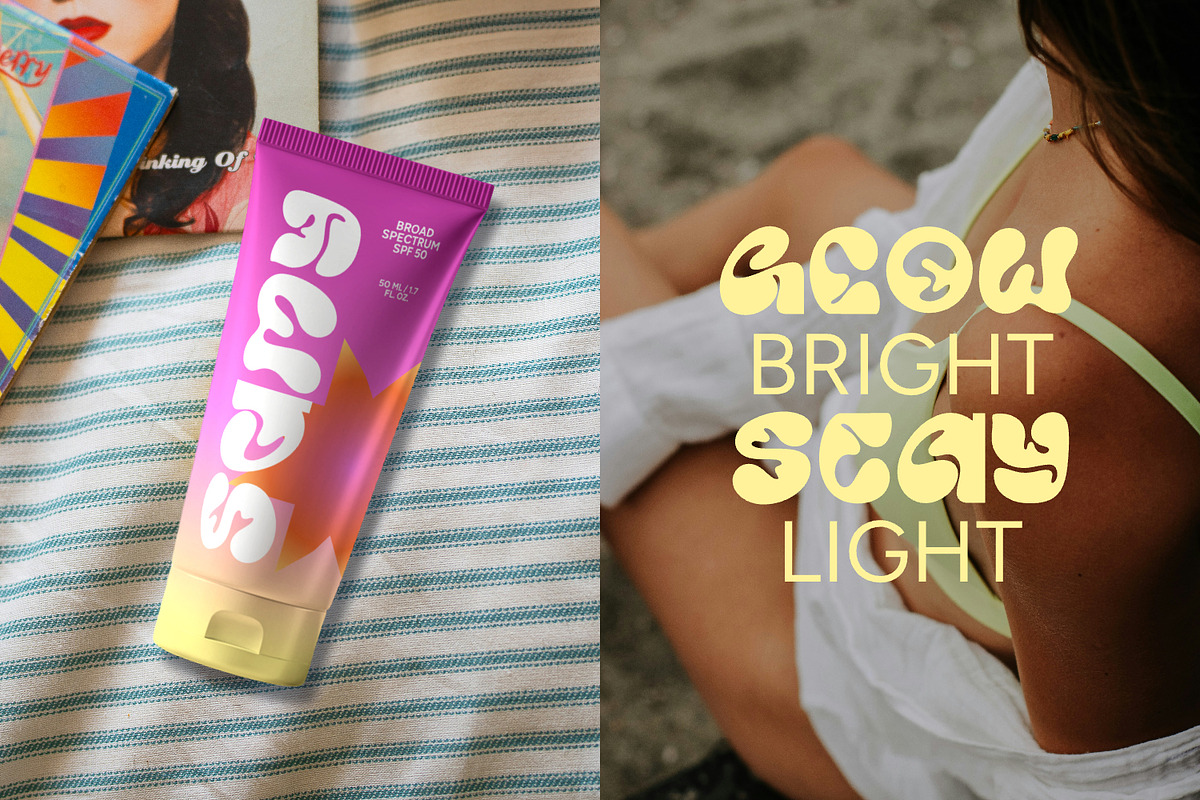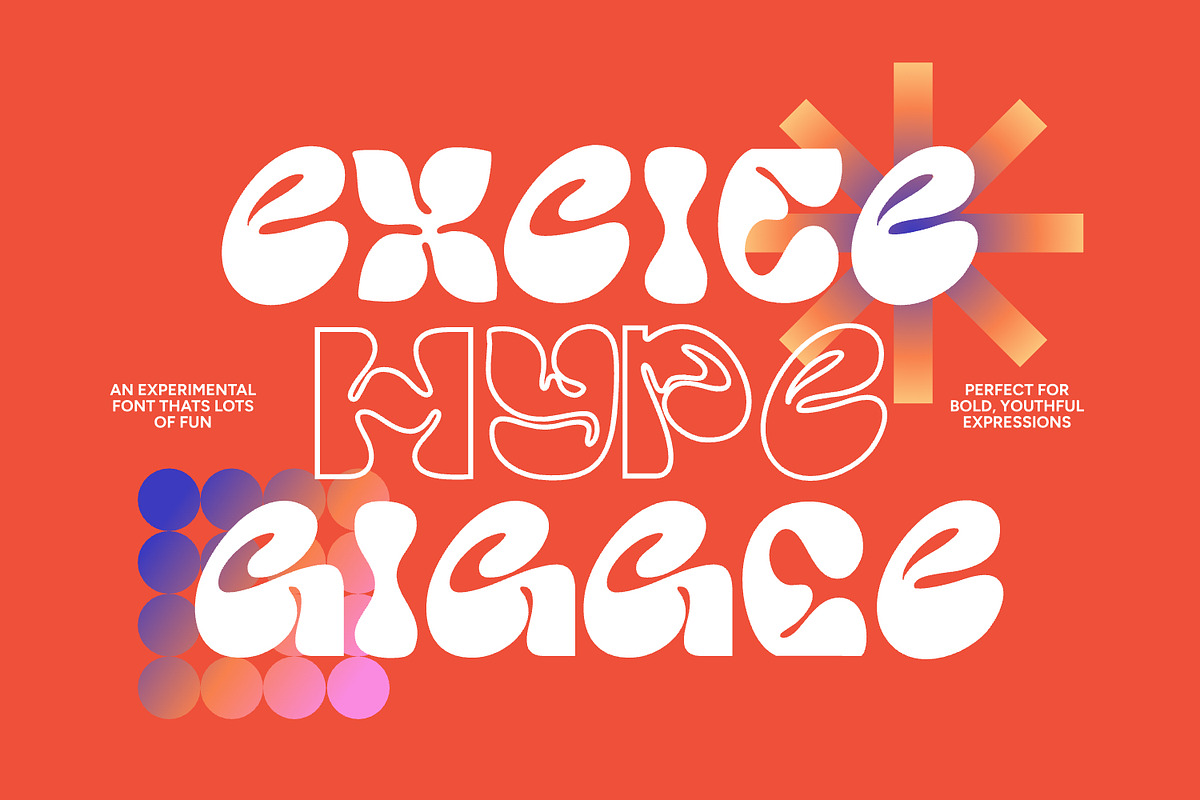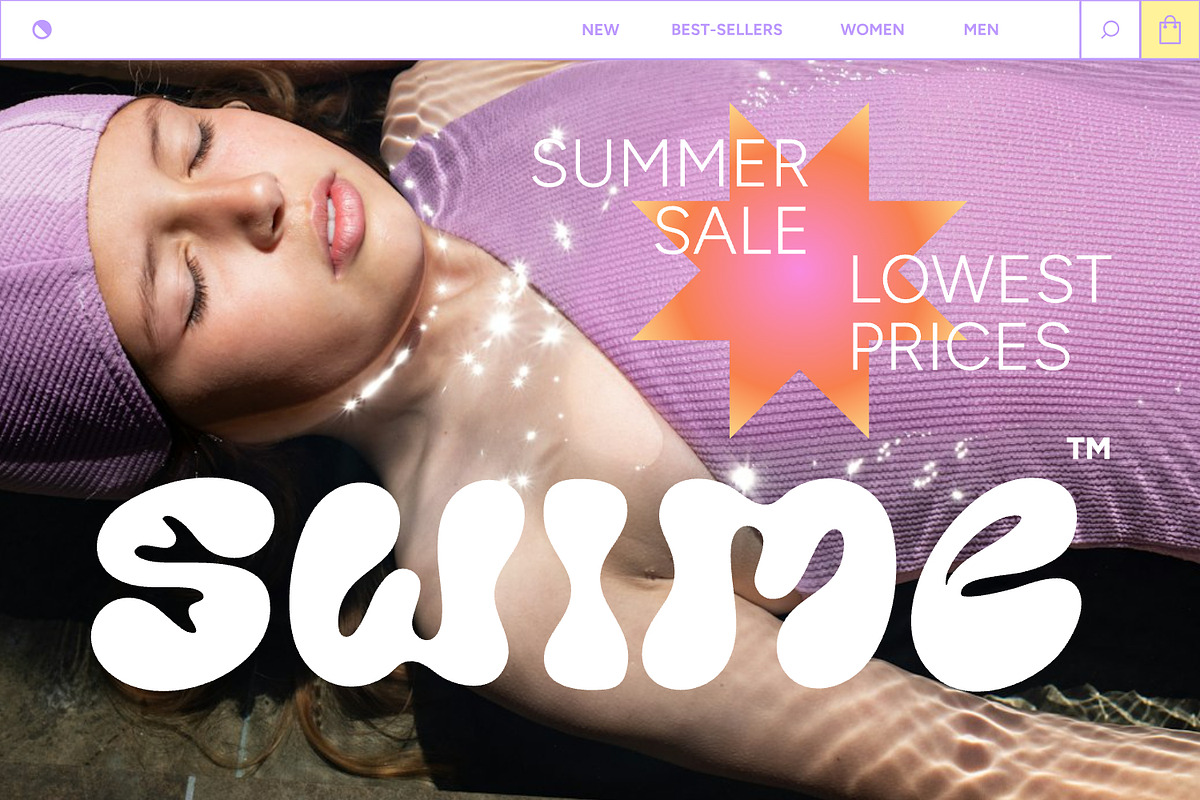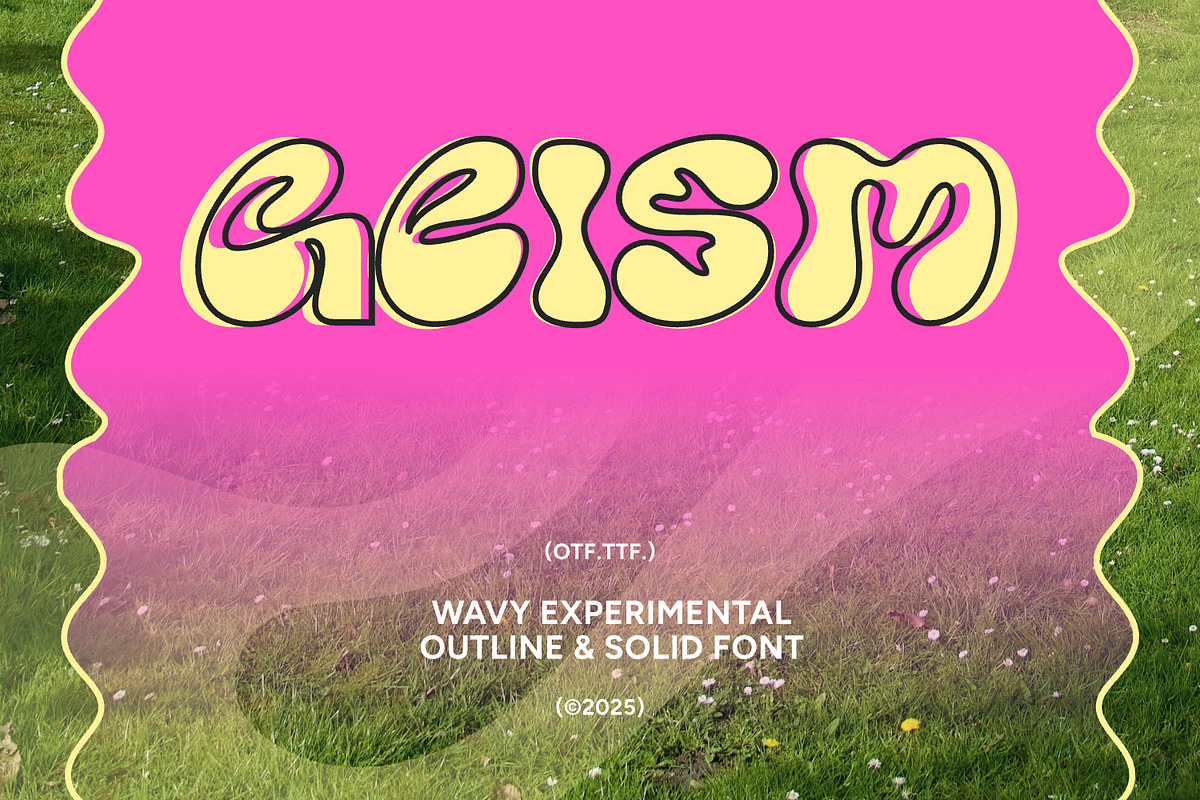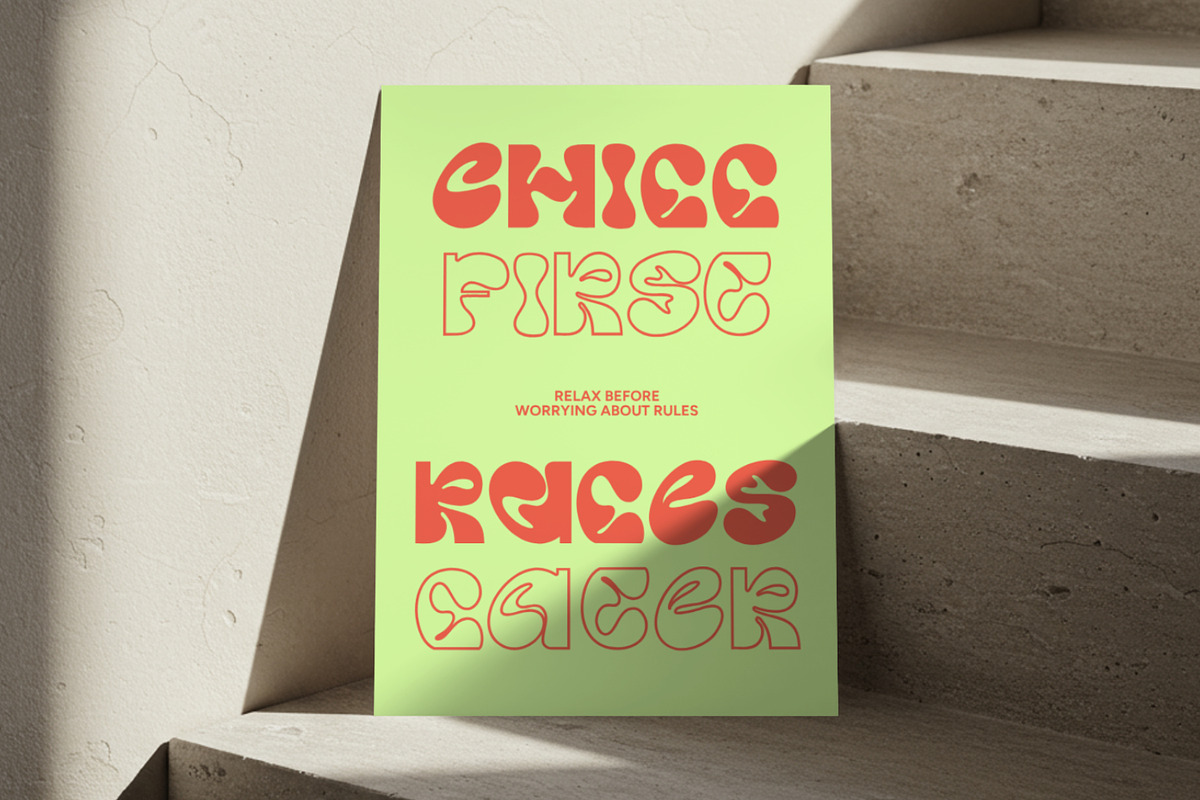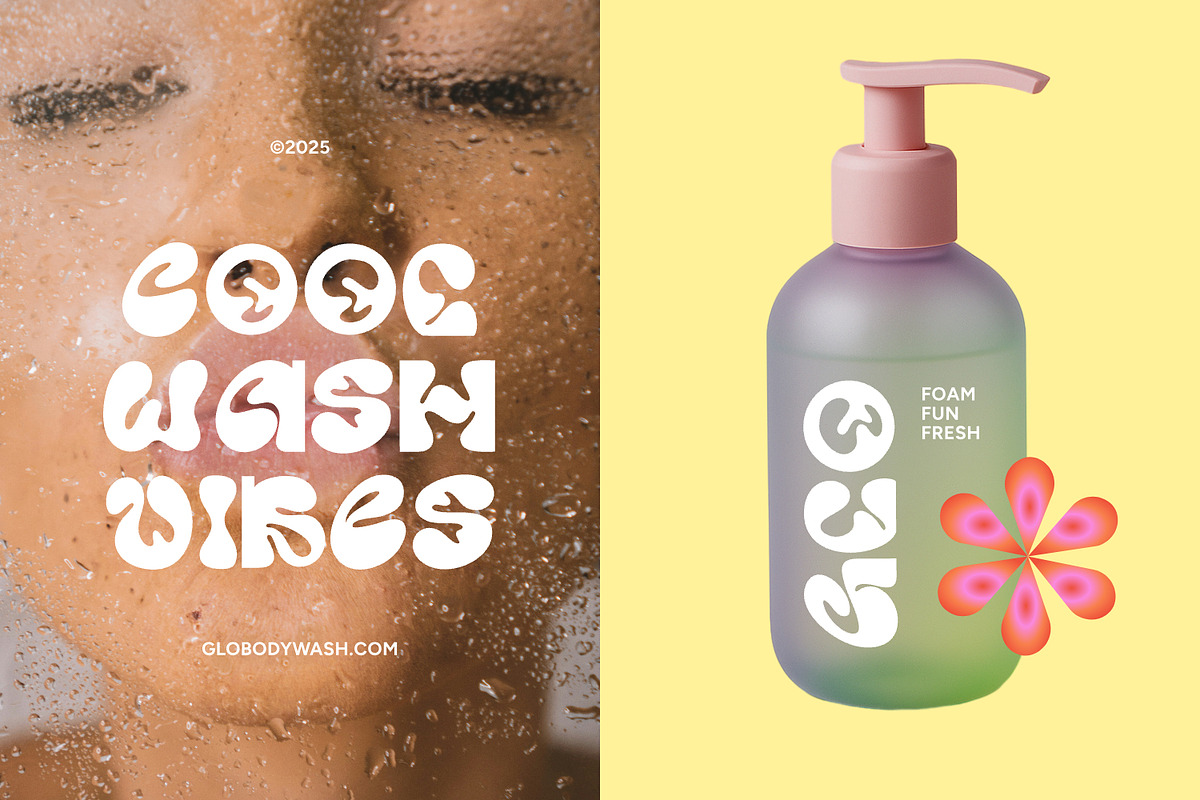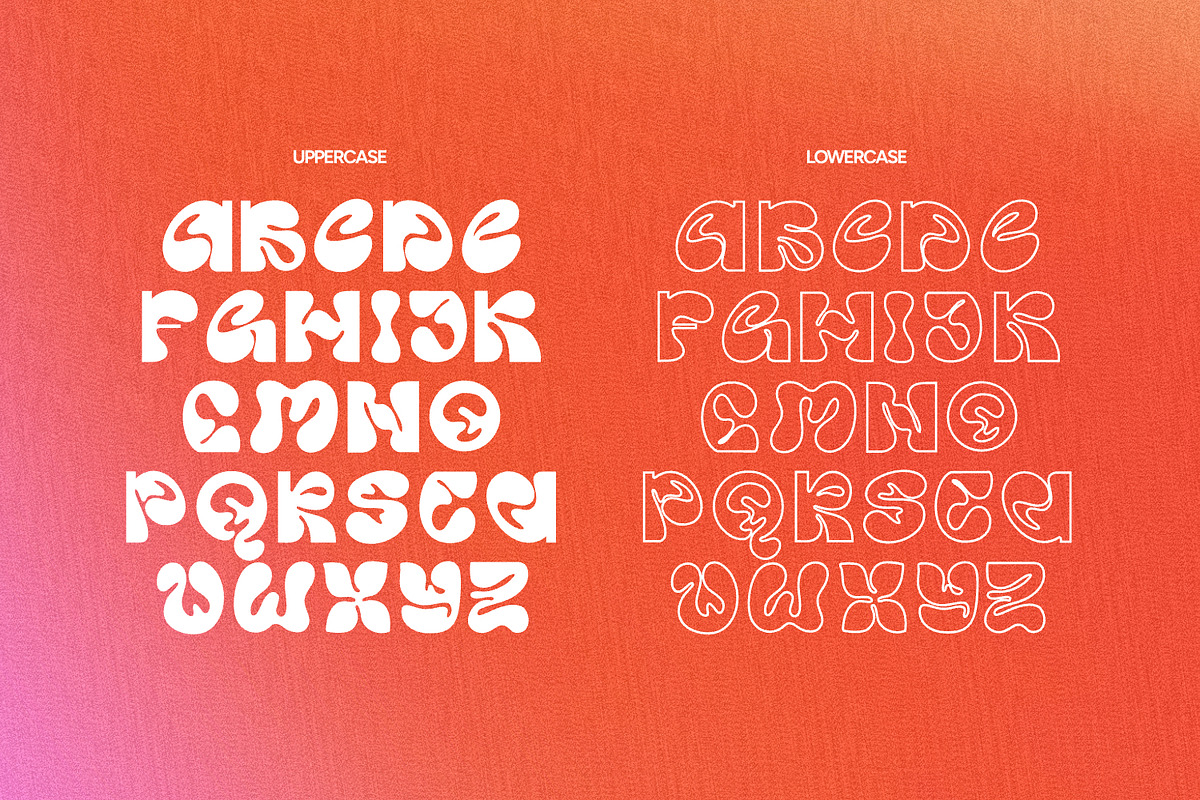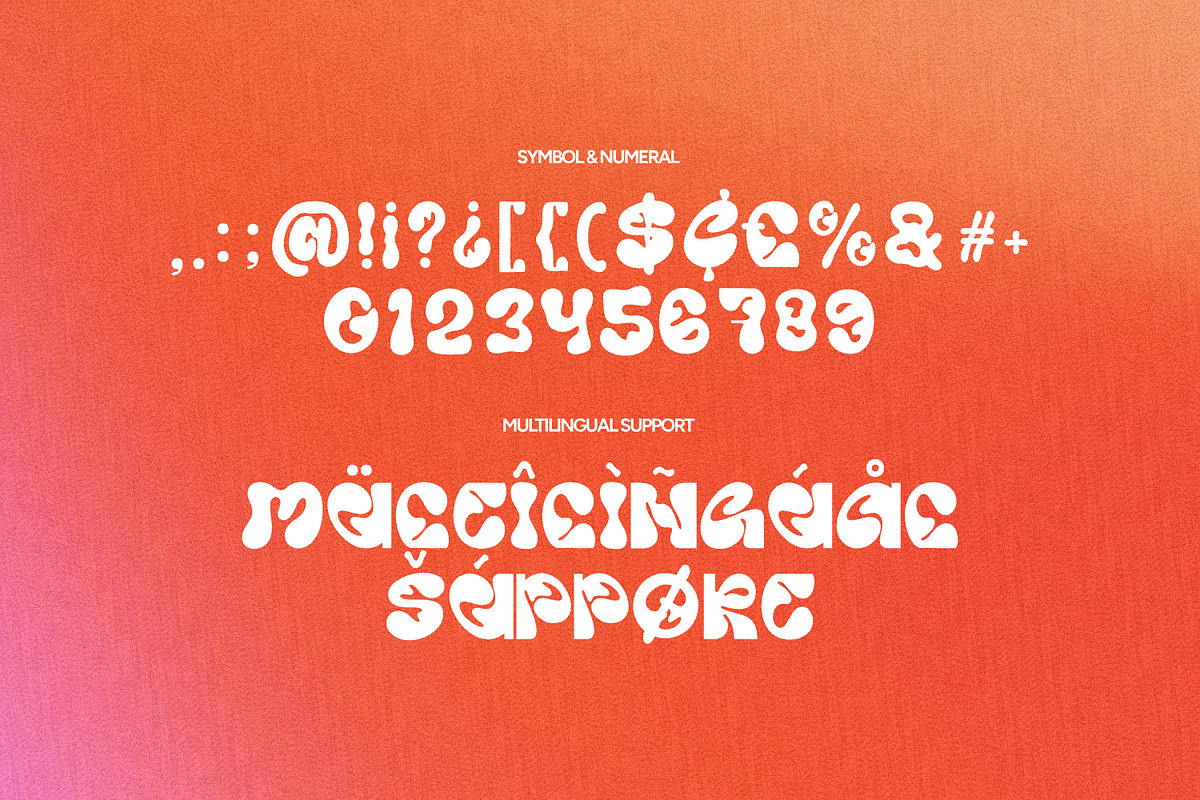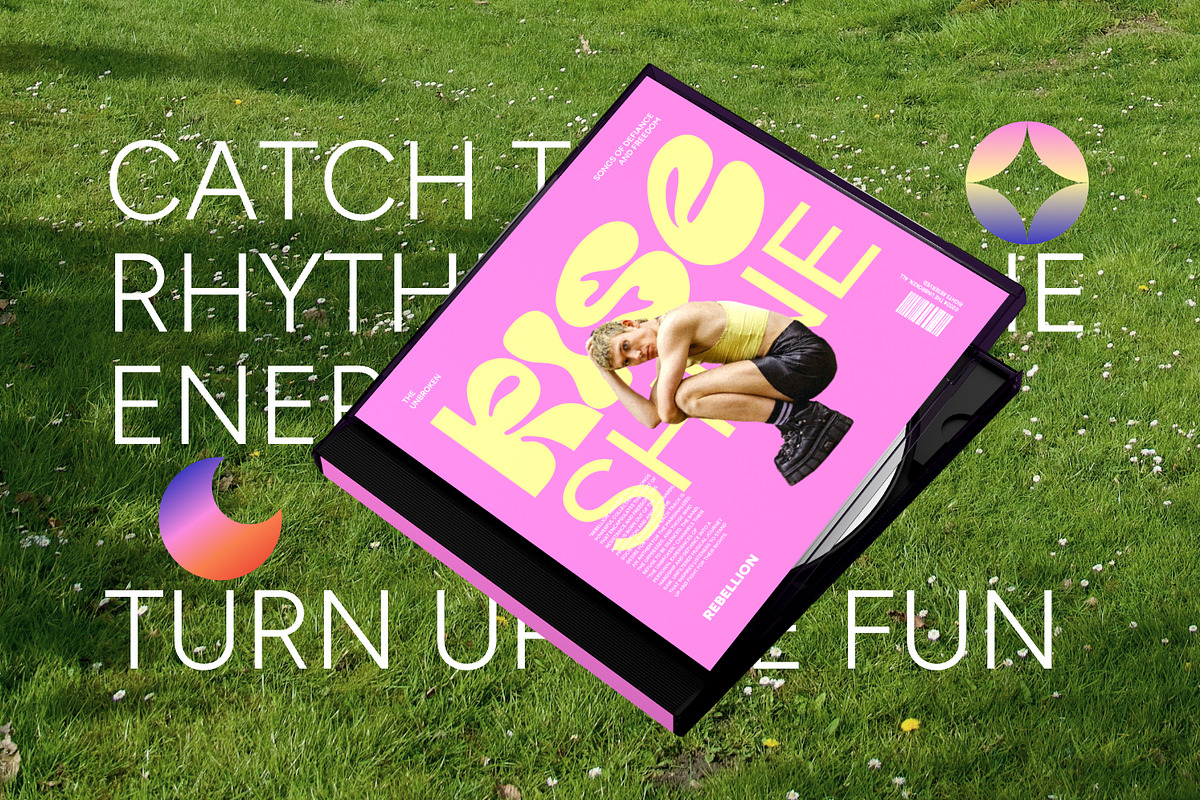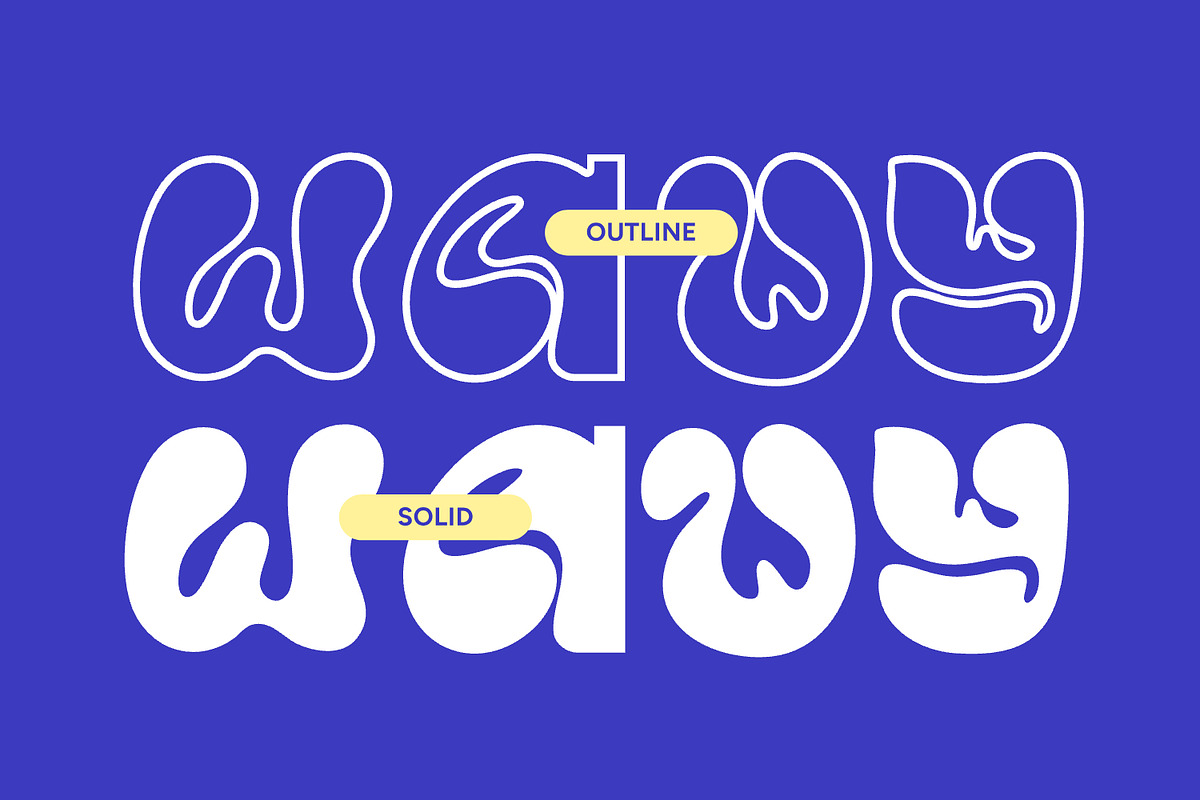
Geism - Solid & Outline
Geism is a cheerful, wavy display font with soft, blobby curves that feel retro and fresh at the same time. Think 70s groovy + Y2K bubbles, perfect for skincare and beauty packaging, posters, festival artwork, merch, logos, and big social headlines. It comes in Solid and Outline so you can layer, mix weights, or pair them for instant contrast.